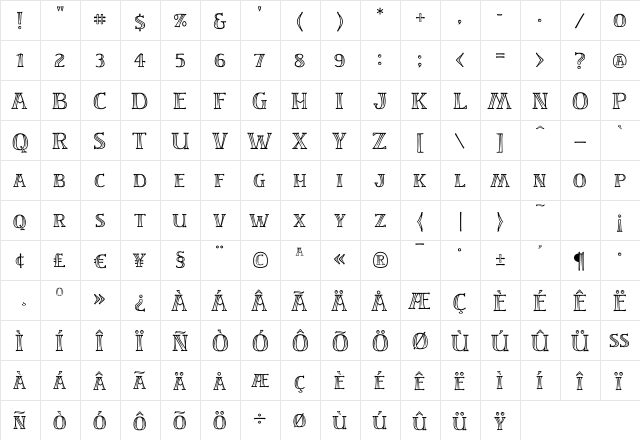
ZebraSmall Caps Regular
Design Context for ZebraSmall Caps Typeface
ZebraSmall Caps offers clean, dependable letterforms without strong stylistic allegiance, making it a practical choice for designers who need flexibility.